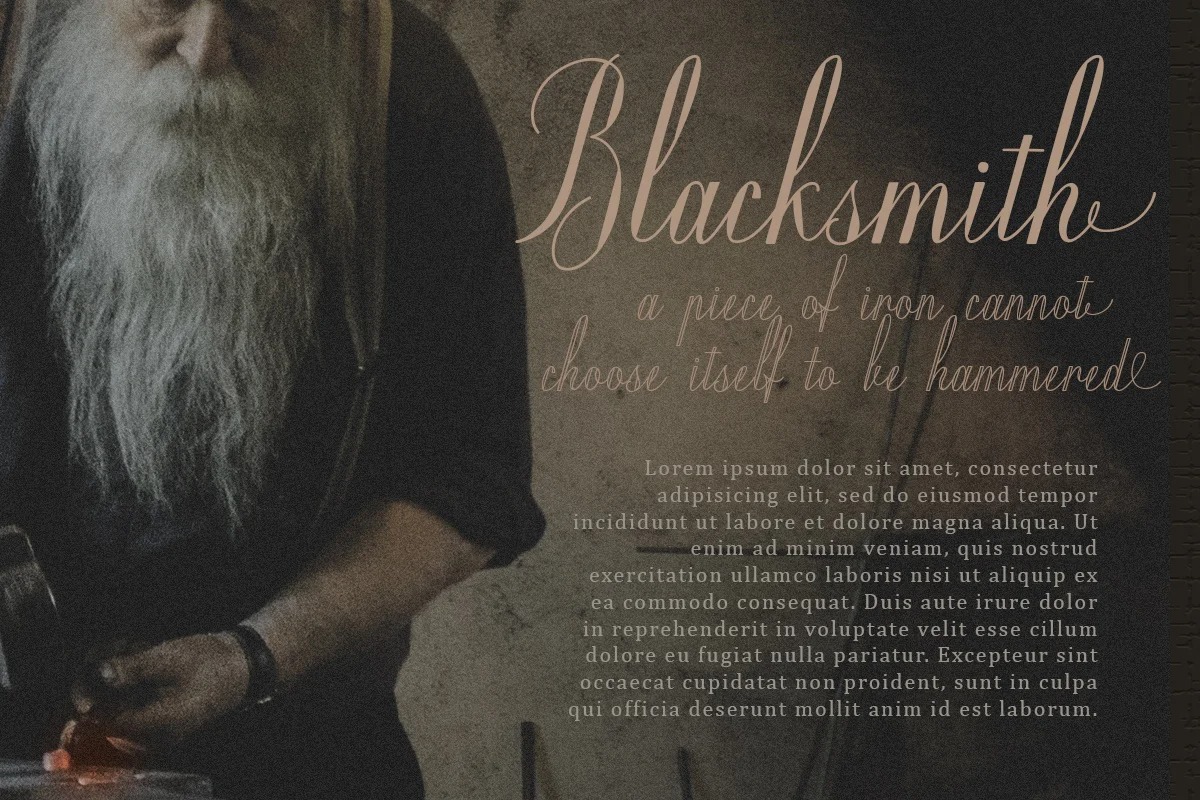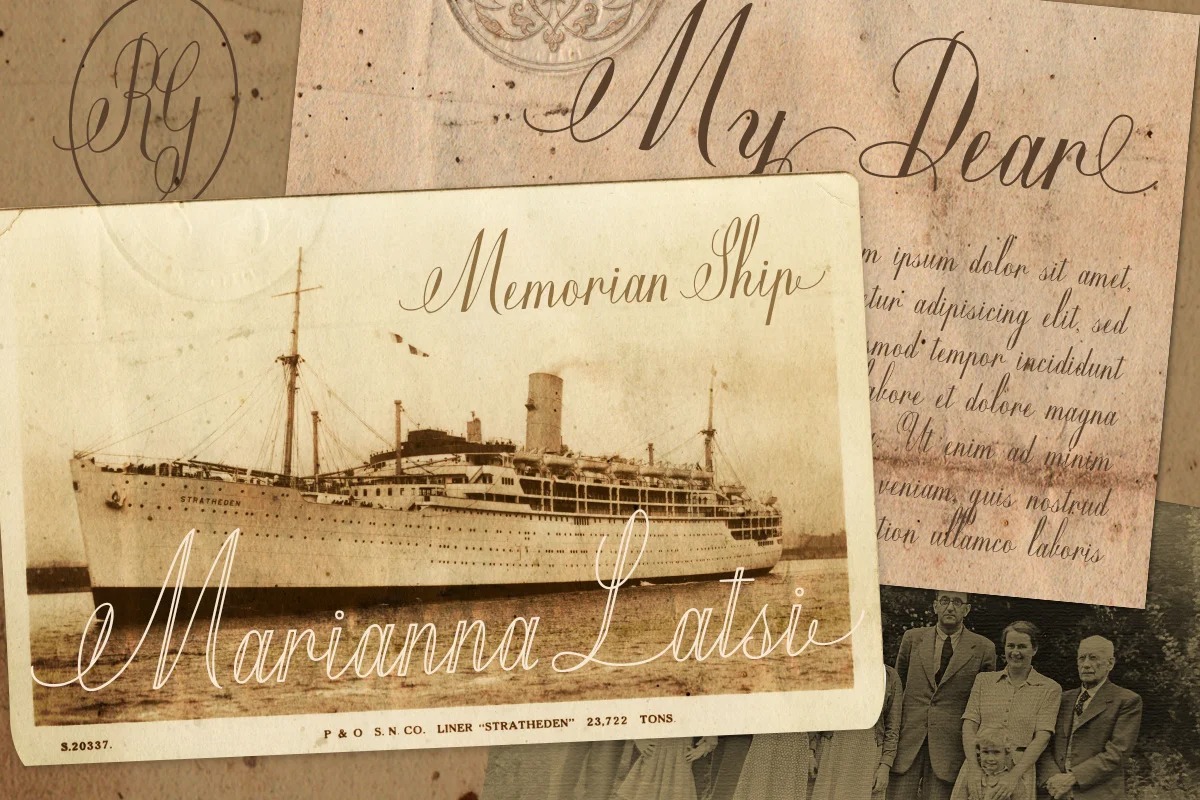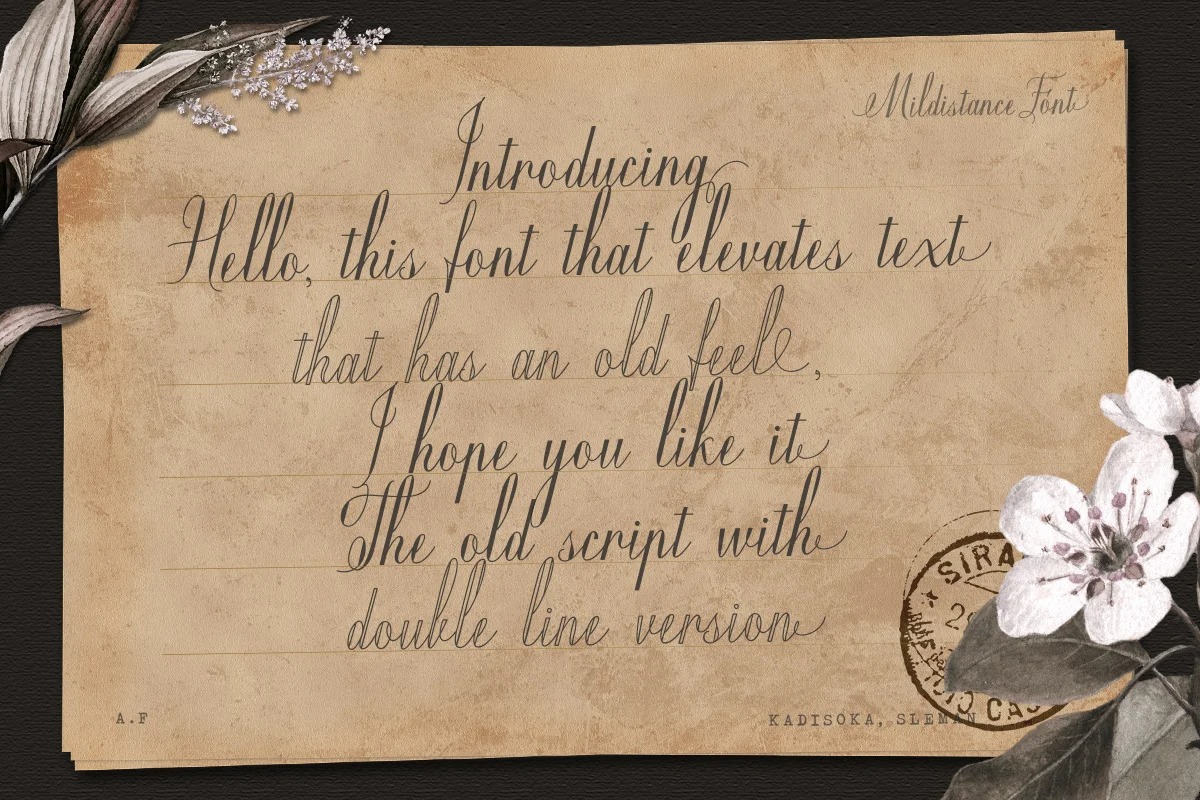
Mildistance Script Font
This is a dazzling and timeless handwritten font crafted & designed by Letterhend Studio. The look of the font will give you nostalgic feel, very suitable for old school theme design and the other various formal forms such as invitations, labels, logos, magazines, books, greeting / wedding cards, packaging, fashion, make up, stationery, novels, labels or any type of advertising purpose.